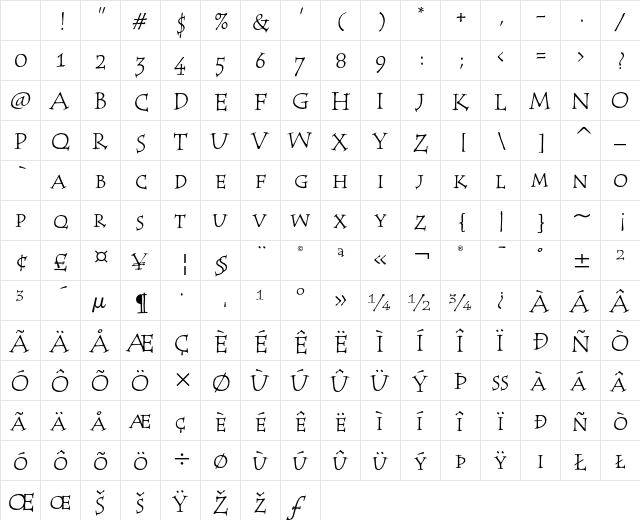
Tempus SC ITC Regular
Tempus SC ITC Family
Design Context for Tempus SC ITC
Tempus SC ITC is a composed and adaptable typeface that performs quietly and consistently across a wide range of design contexts.
Pro Tip: Use Tempus SC ITC in both headline and body roles to test its range before committing to a single application.